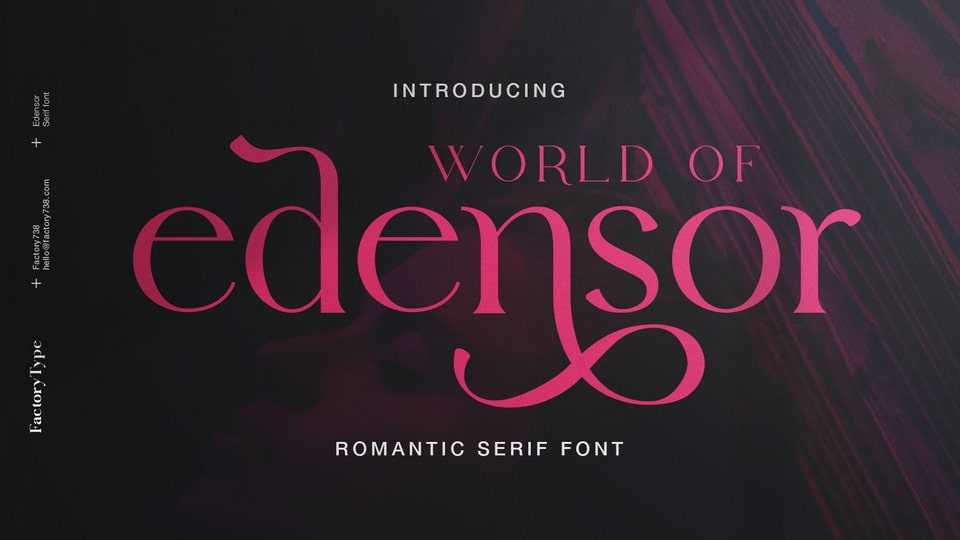
Download Edensor font, a playful yet romantic serif typeface. Edensor teases your eyes with its curves yet still able to maintain its classy composure.
Designer: Factory Type